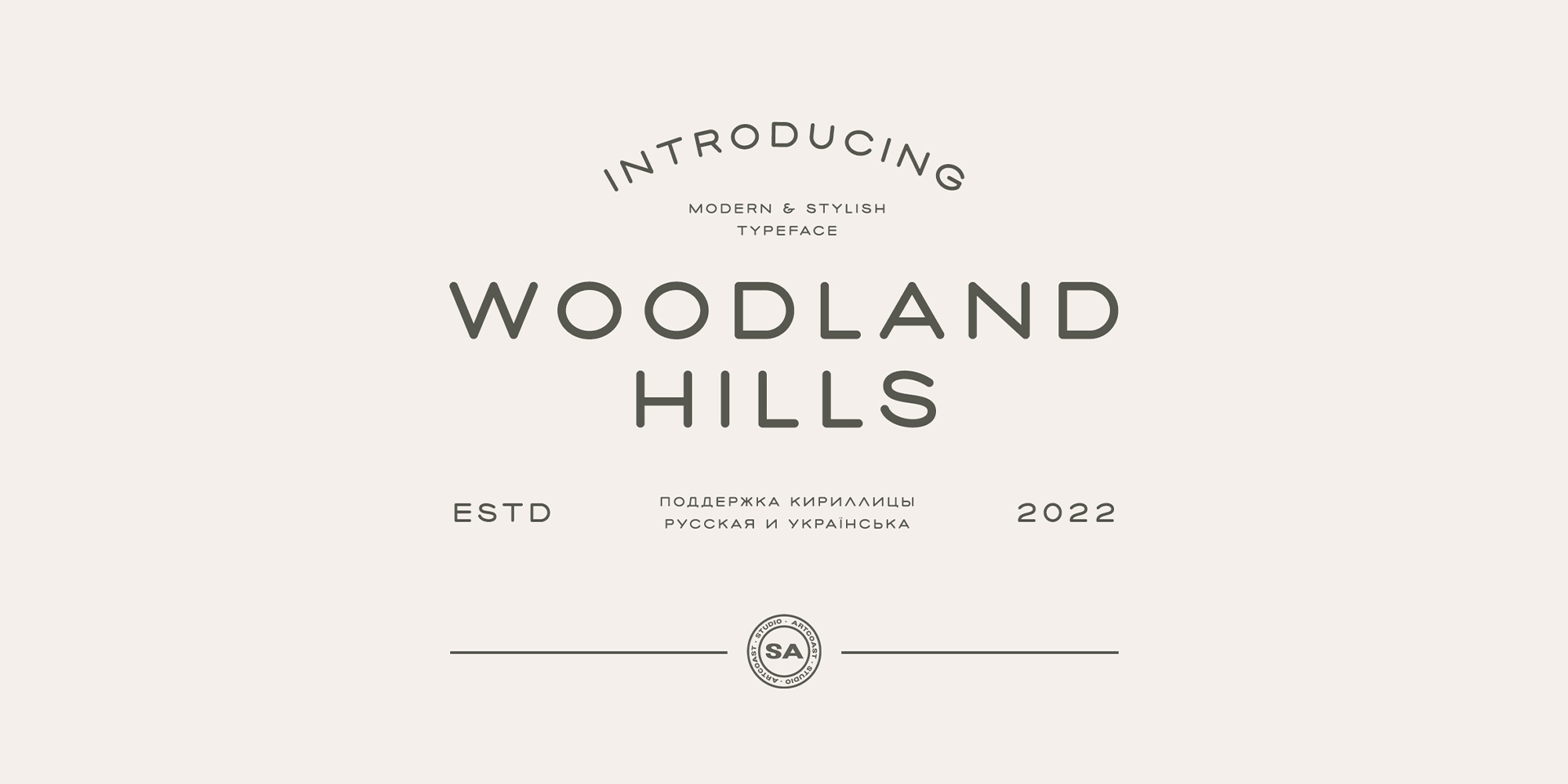
SA Woodland Hills Font is ideal for natural product branding, organic food packaging, eco-friendly company logos, outdoor retreat signage, national park materials, environmental organization communications, woodland cabin designs, nature photography portfolios, sustainable lifestyle brands, forest conservation campaigns, camping gear branding, and outdoor education materials. This harmonious typeface excels in applications requiring natural authenticity and environmental consciousness, making it perfect for eco-brands, outdoor recreation companies, conservation groups, and businesses promoting sustainable living.
What makes SA Woodland Hills Font exciting is its perfect capture of natural serenity and organic elegance. The font features gentle letterforms with subtle curves and natural proportions that evoke the peaceful atmosphere of forest landscapes and rolling hills. Its carefully balanced character spacing and earthy aesthetic create an immediate connection with nature, while maintaining excellent readability across all applications. The font's distinctive personality successfully combines environmental authenticity with contemporary functionality, offering designers a genuine tool for nature-inspired communications.
The SA Woodland Hills Font family typically includes multiple weights such as Light, Regular, Medium, Bold, and Black variations, along with their corresponding italic styles. Many collections also feature organic variants, textured versions, and nature-inspired alternates that enhance the font's woodland character. Some comprehensive packages include decorative elements, leaf motifs, and natural symbols that provide complete design flexibility for environmental and outdoor-themed projects.
SA Woodland Hills Font Free Download represents the perfect fusion of natural beauty and typographic excellence. This remarkable typeface brings instant environmental credibility and organic appeal to any project, making it particularly valuable for eco-conscious brands, outdoor companies, and organizations promoting environmental awareness. The font's versatile nature allows it to perform beautifully in both large outdoor signage and detailed product labeling.
Designers value SA Woodland Hills Font for its ability to instantly convey environmental consciousness and natural authenticity. The font's robust construction ensures excellent performance across various media, from digital displays to outdoor-resistant print applications. Its organic appearance resonates with audiences seeking sustainable lifestyles and environmental responsibility, making it invaluable for green businesses, conservation organizations, and eco-tourism ventures.
The comprehensive character set includes standard Latin characters, numerals, punctuation marks, and special symbols commonly used in environmental and outdoor contexts. This extensive coverage ensures seamless integration into diverse projects while maintaining the font's distinctive natural character across all applications and environmental communications.